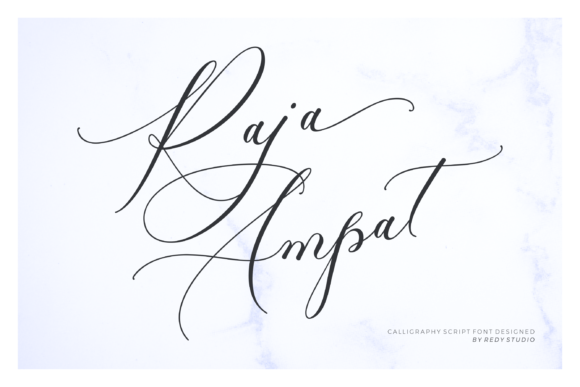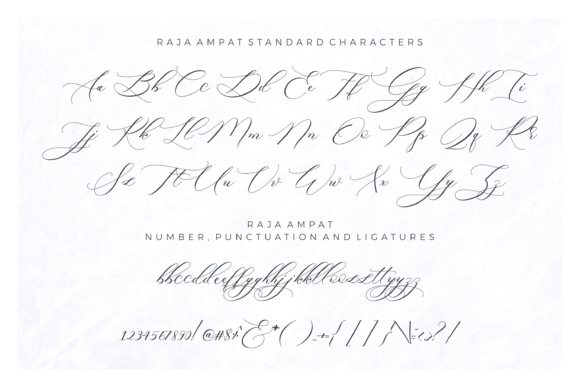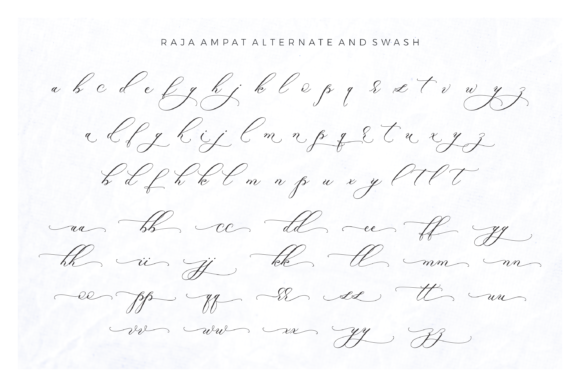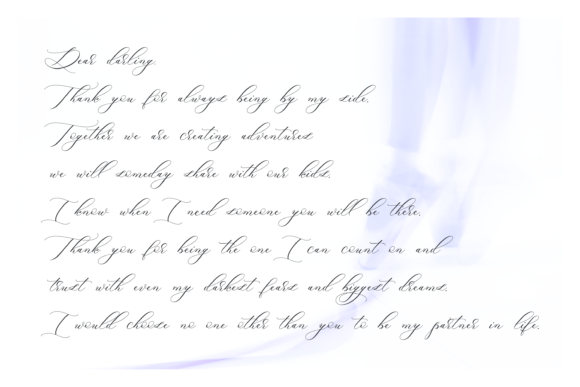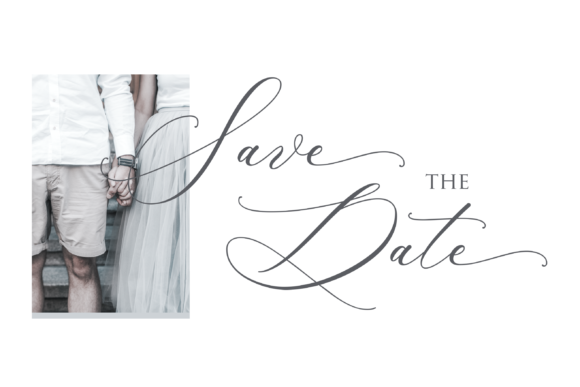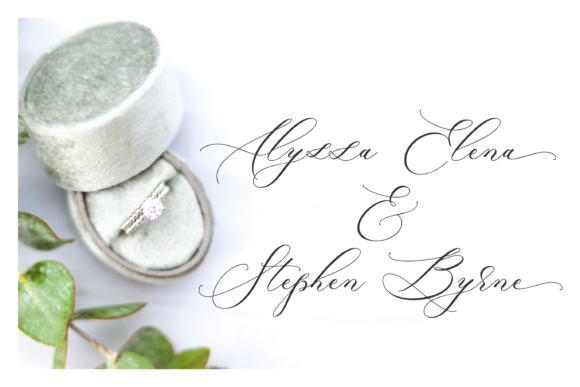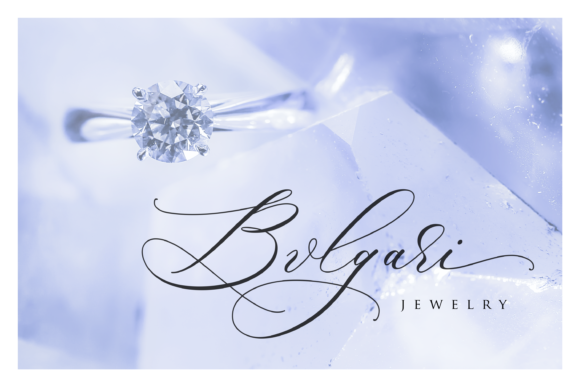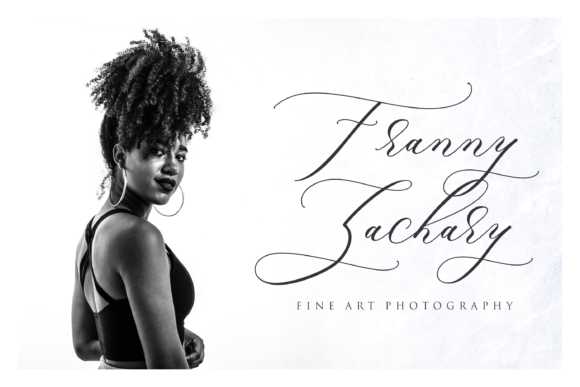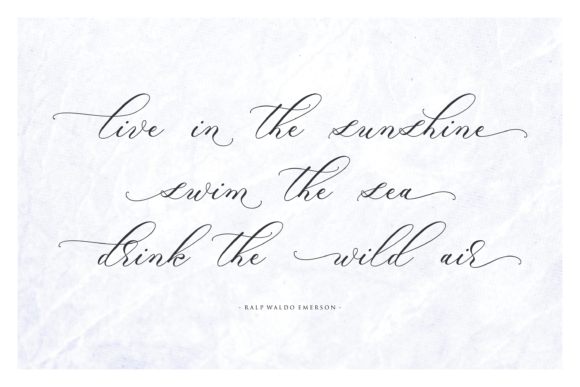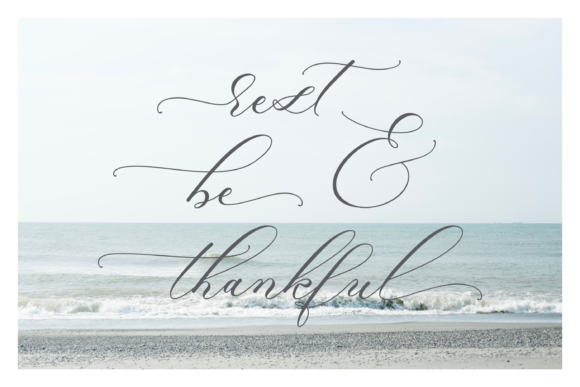
Raja Ampat Font
About Raja Ampat Font
The Raja Ampat is a modern calligraphy font with lovely movements. It has an elegant and feminine feel which is perfect for wedding invitations, cards, quotes, and much more!